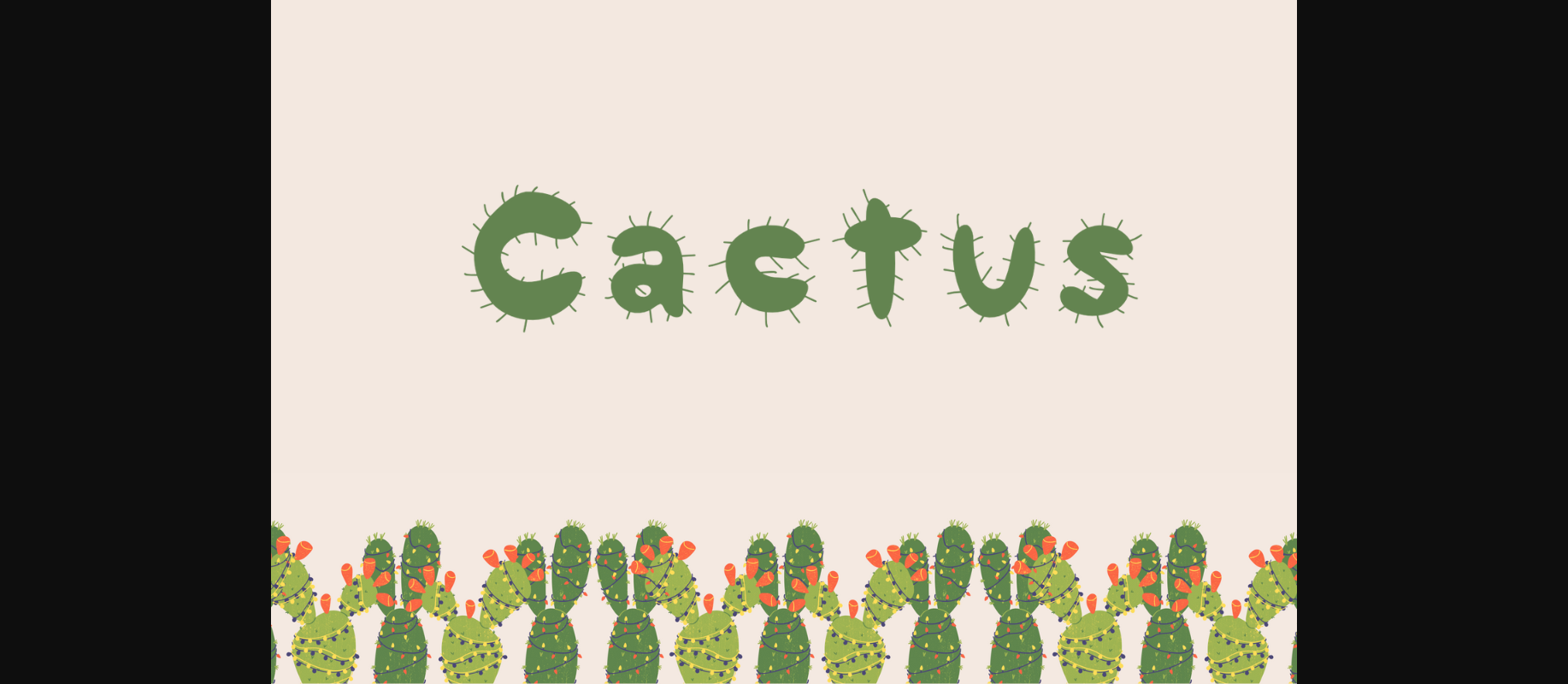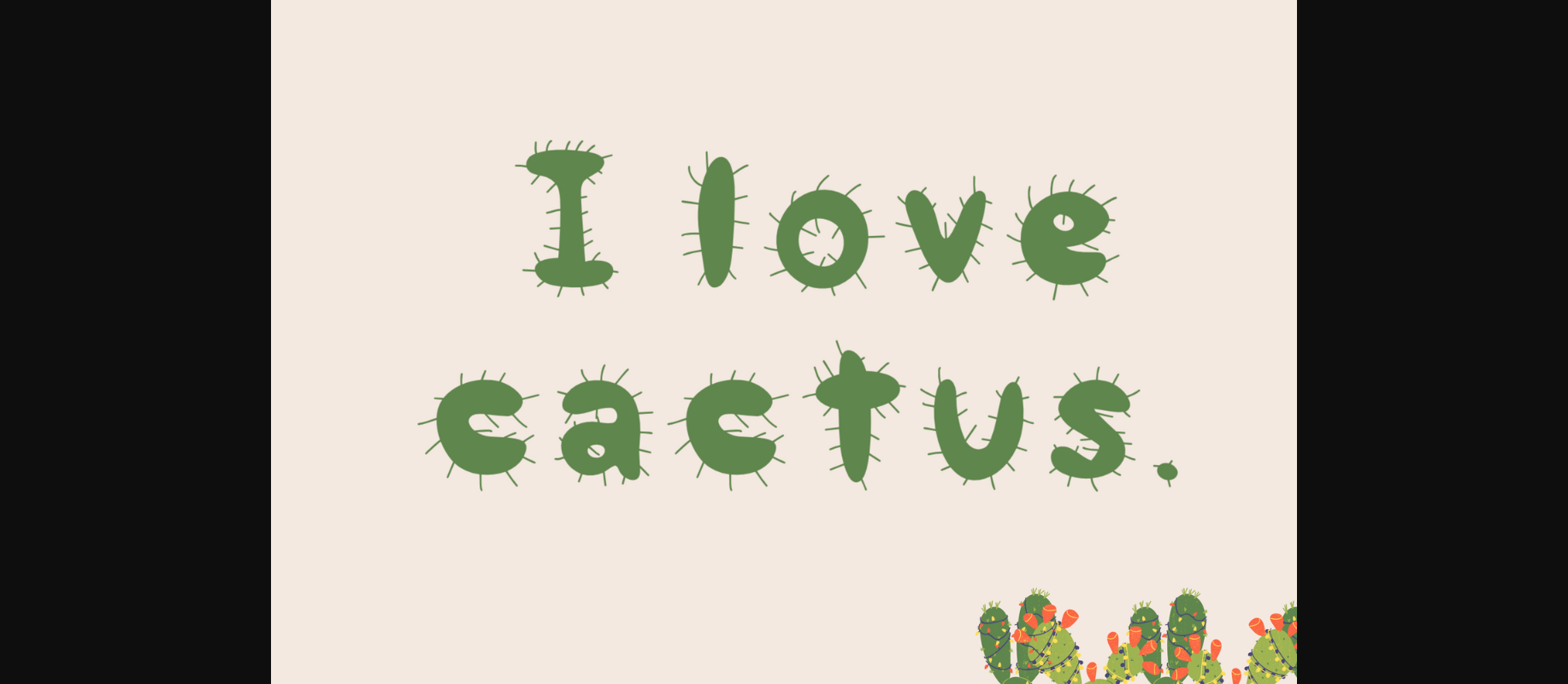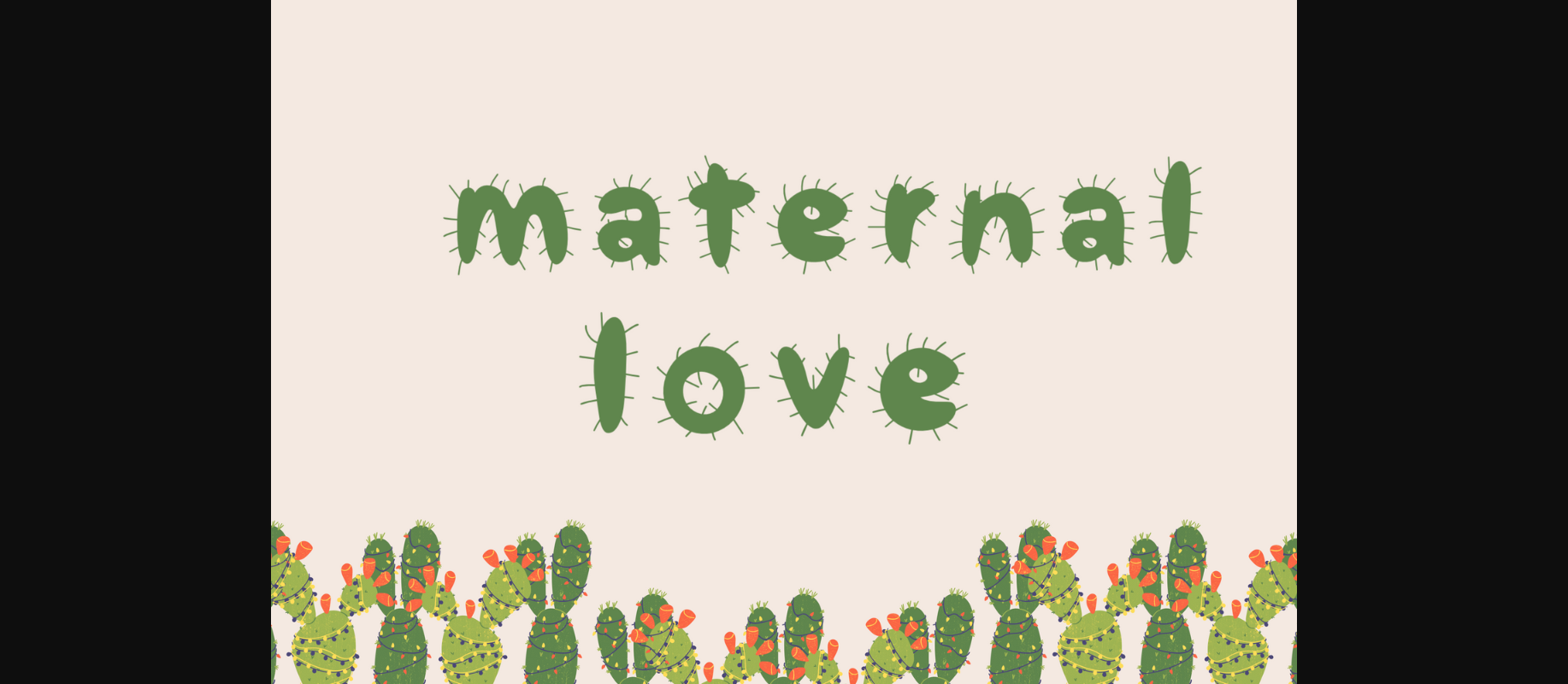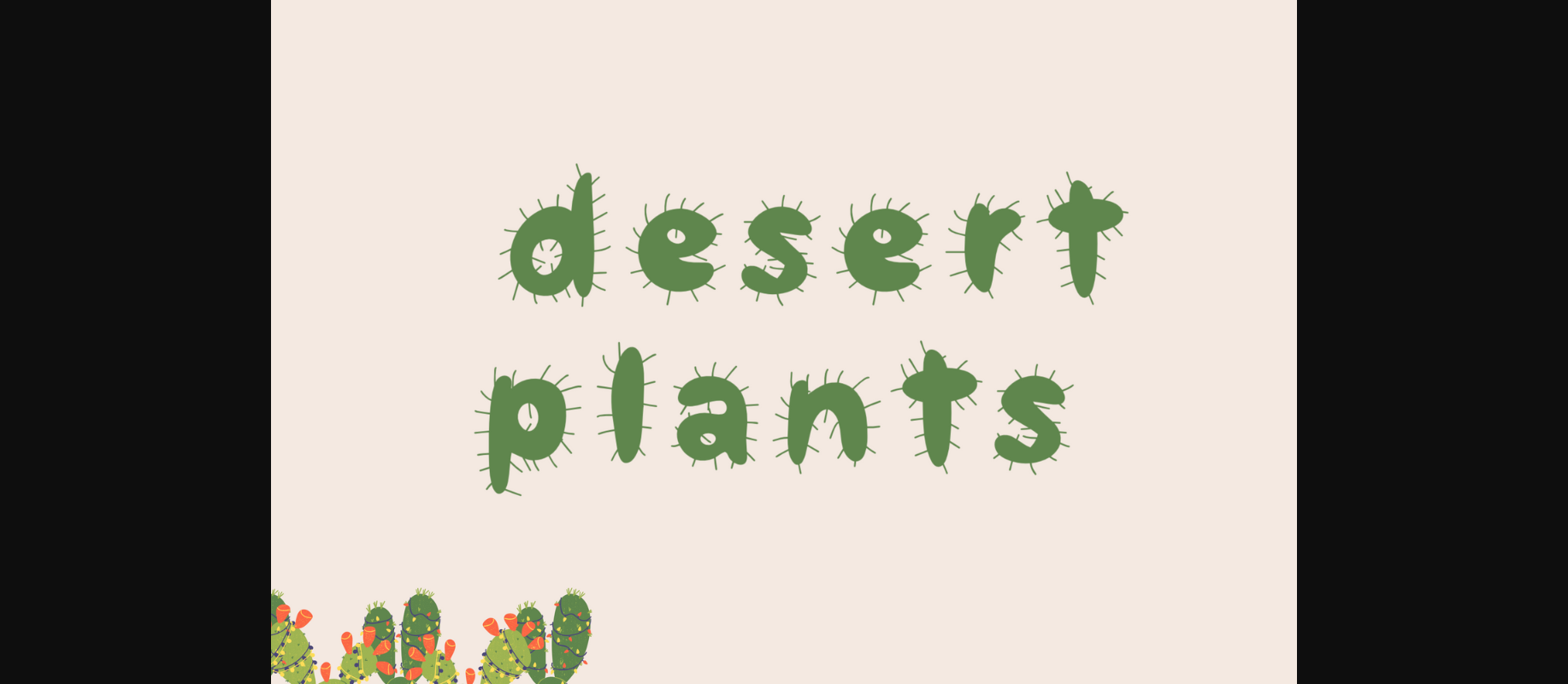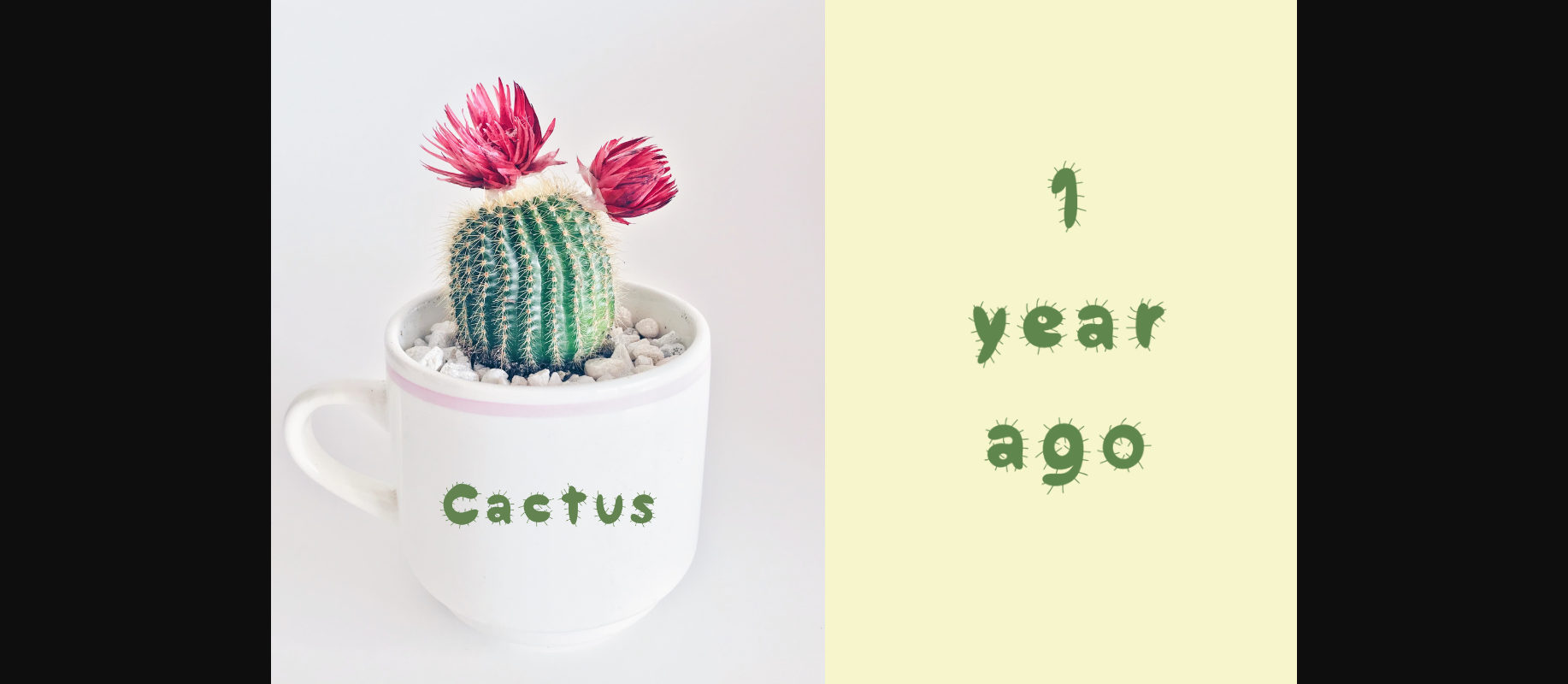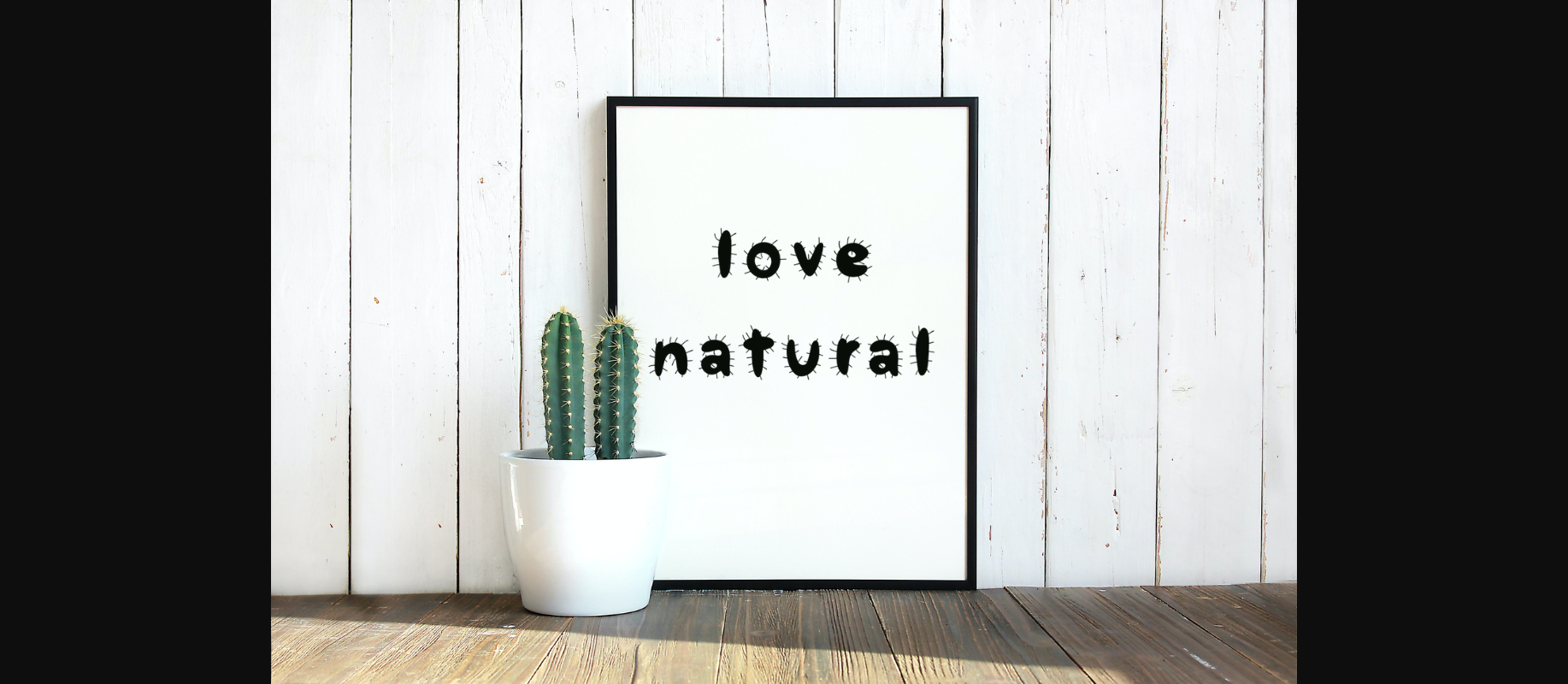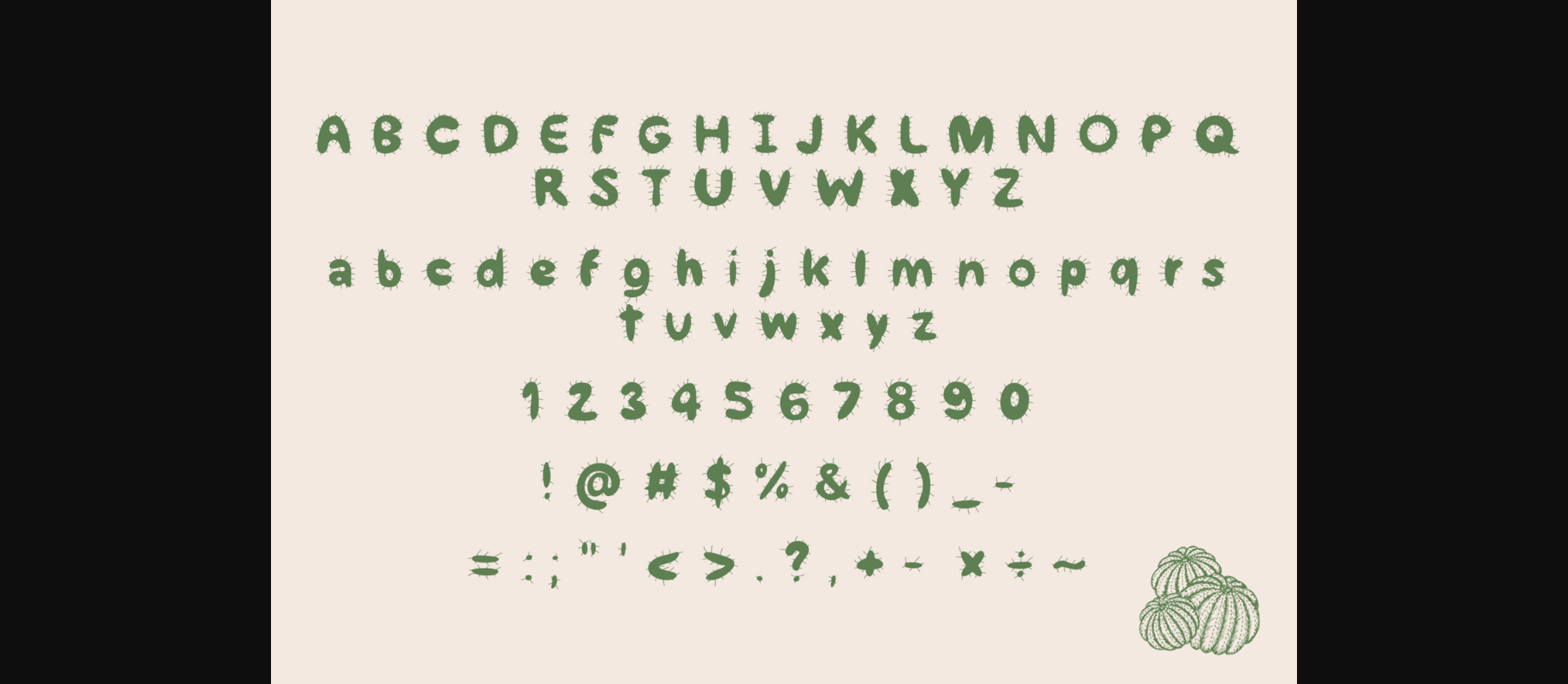
HomeDecorative FontsCactus Font Decorative Fonts Cactus Font FacebookXPinterestWhatsApp 1 of 9 ... Cactus Font Poster 2... Cactus Font Poster 3... Cactus Font Poster 4... Cactus Font Poster 5... Cactus Font Poster 6... Cactus Font Poster 7... Cactus Font Poster 8... Cactus Font Poster 9... About Cactus Font Cactus font is a decorative font that is perfects project related to Natural, desert plant, and strong or power. Use it on your card, flyers, banners, book titles, social media and so much more! DOWNLOAD NOW People also explored Hello Valentine Font Outrageous Font Hailey Font Mandala Absolute Font Smart Font Wowsers Font Beestory Font Herbert Font Recerboy 400 0 TagsCactusCactus Font Previous articleBlack Cat FontNext articleDzemaili Font LEAVE A REPLY Cancel reply Comment: Please enter your comment! Name:* Please enter your name here Email:* You have entered an incorrect email address! Please enter your email address here Website: Save my name, email, and website in this browser for the next time I comment. Personal Use Free Glowing Personal Use Free Read more about this font Hillgates Personal Use Free Read more about this font Font Slice Personal Use Free Read more about this font Eigha Personal Use Free Read more about this font BLOG How to Cut Any Font on Cricut: Convert a Font to SVG (Free) Turn any font into a clean SVG so it cuts crisp on Cricut - a quick 3-step workflow using a free font-to-SVG tool. Best Fonts for YouTube Videos: Make Your Thumbnails Stand Out Top 7 Google Fonts Alternatives for Faster and Privacy-Friendly Web Design (2025) 5 Fonts That Will Dominate Design Trends in 2026